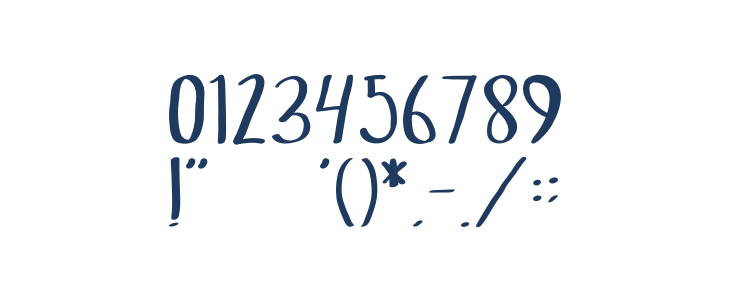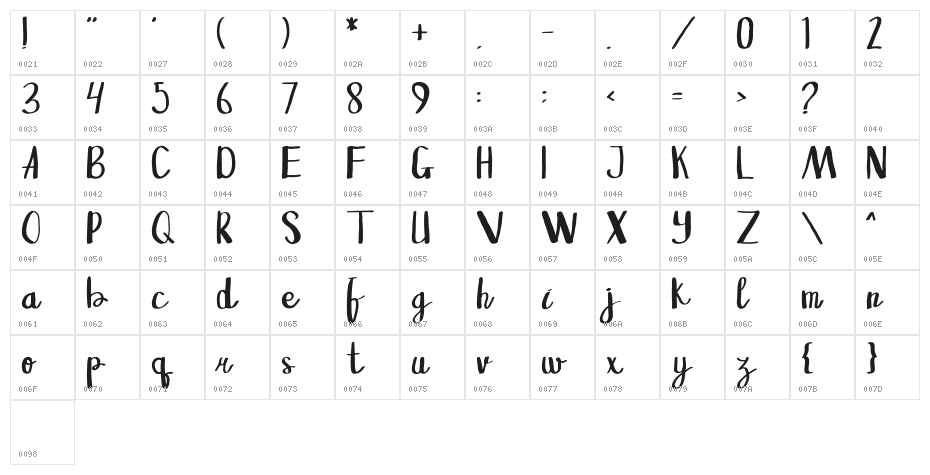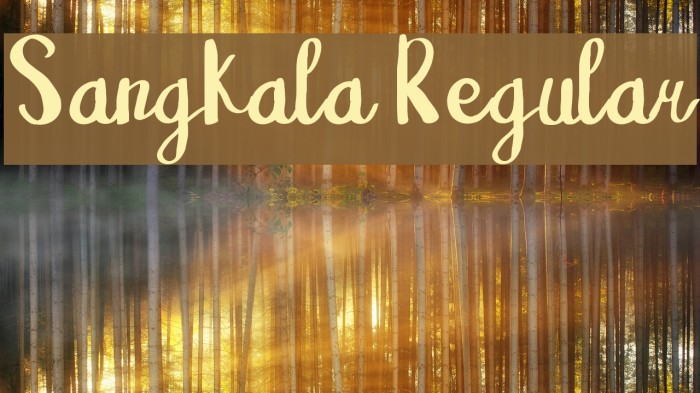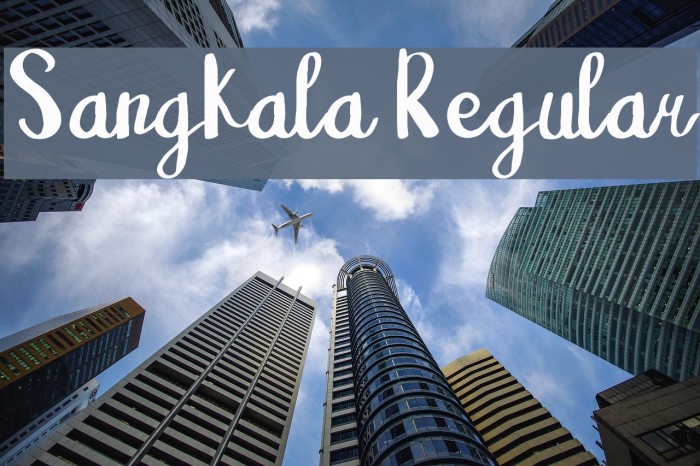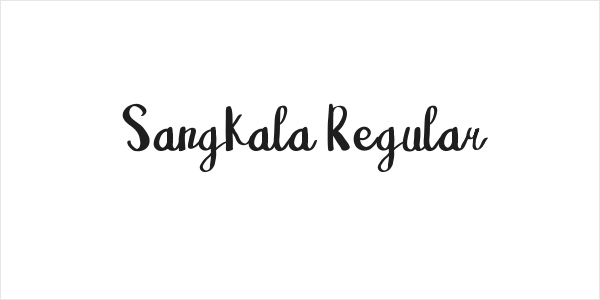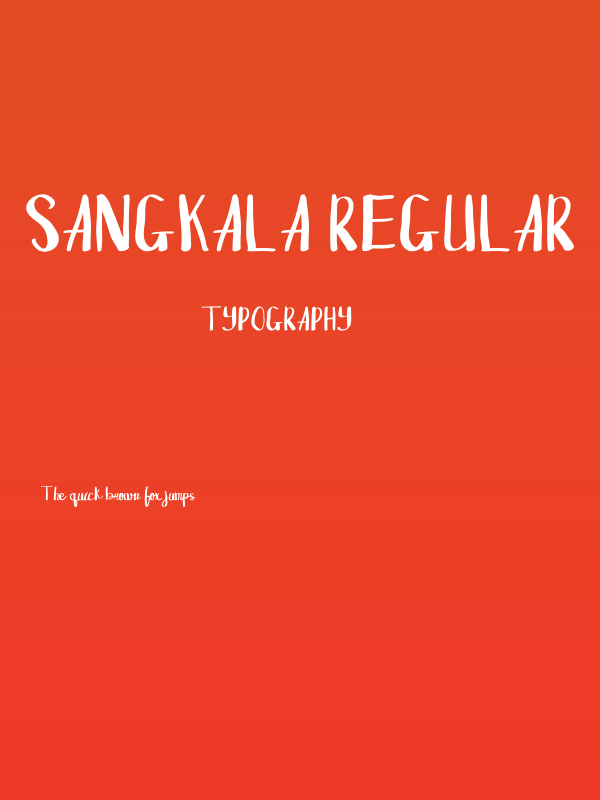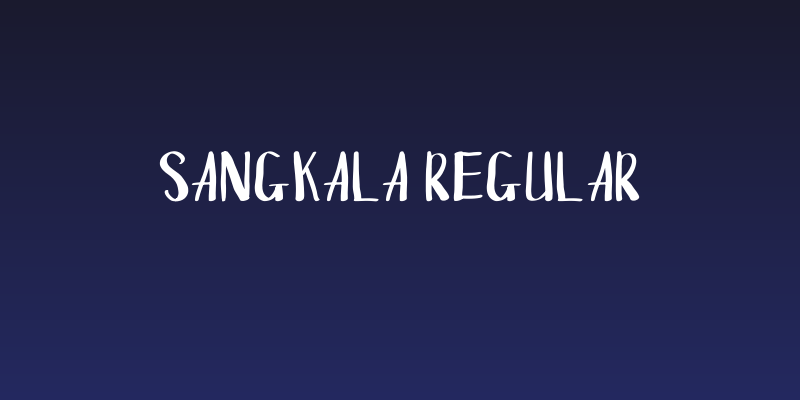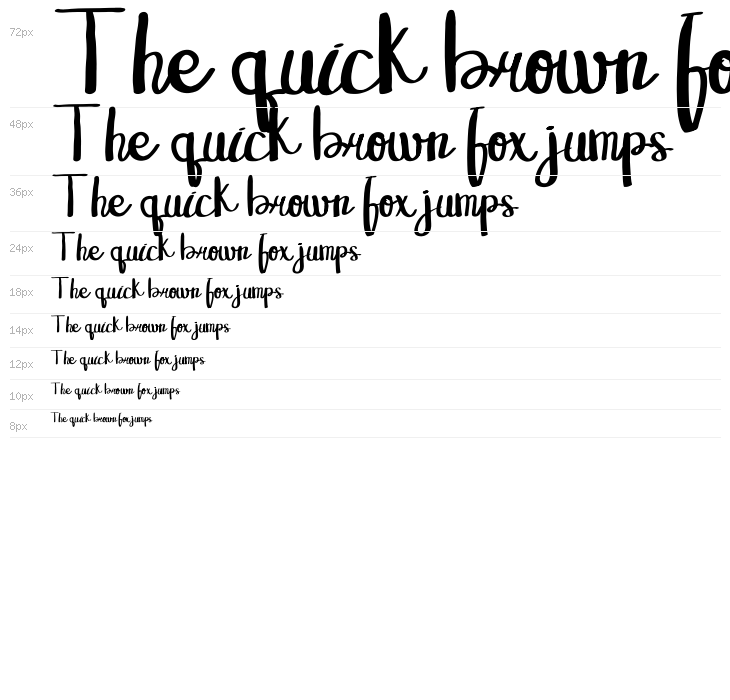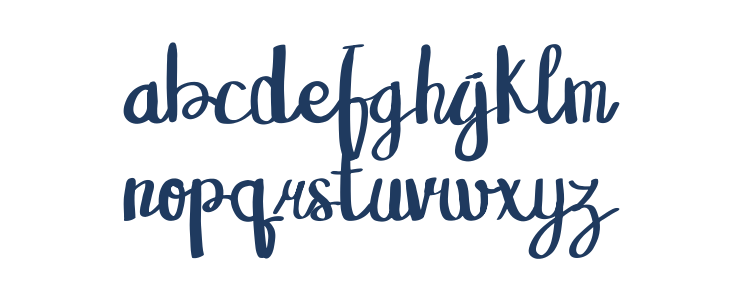
Sangkala Regular Font
Sangkala Regular Description
This font features a playful and artistic handwritten style, characterized by its fluid and dynamic strokes. The uppercase letters are bold and slightly elongated, giving a sense of movement and energy. The lowercase letters maintain a consistent flow with a mix of rounded and angular forms, adding to the font's unique charm. Numbers and special characters follow the same lively aesthetic, making them stand out while remaining cohesive with the overall design. The font's organic and informal appearance makes it suitable for creative and expressive projects.
| Proposed Projects | Ideal for greeting cards, invitations, posters, and branding projects that require a personal and artistic touch. |